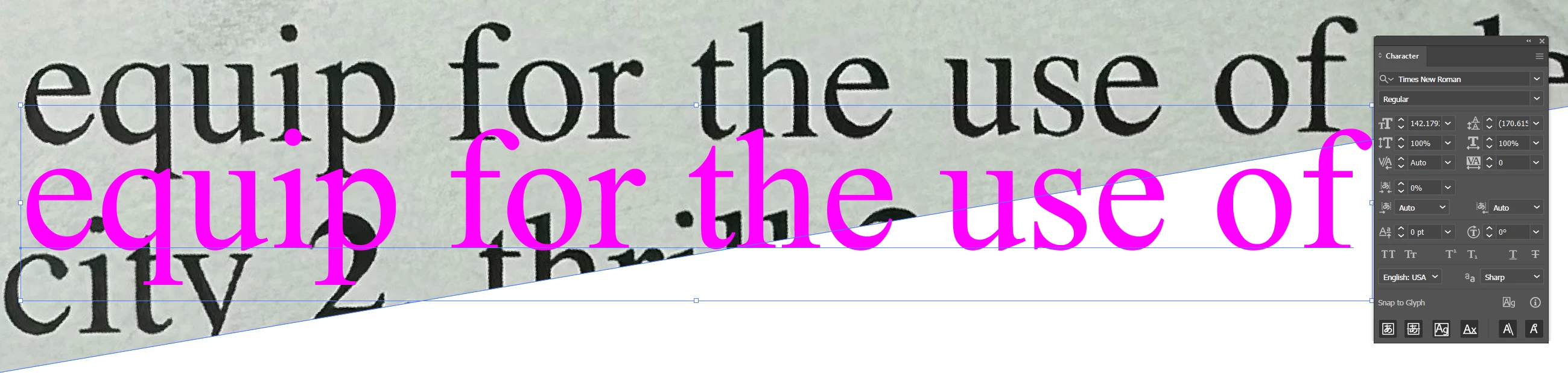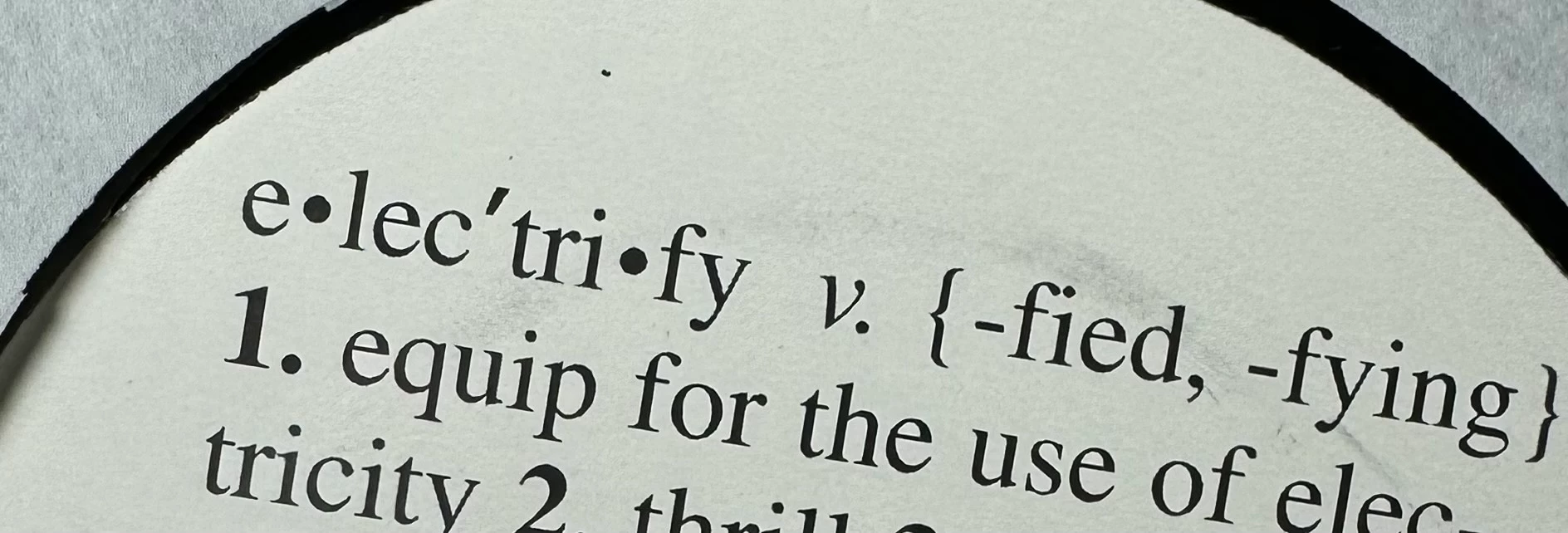
Hello everyone.  Can someone help me locate this font please?  Is is available through Adobe?
Looks like the font from Webster's Dictionary, or close to it.  I need to replicate the written text in pic, please.
Had a quick check myself and it seems to be Times New Roman:
looks like it. even the the lower case v, but it's itallic.  Thank you...
Never would I had thought it was Times New Roman.